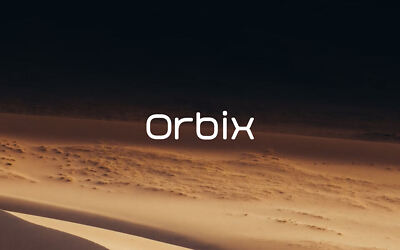
Neutral Sans Typeface
Neutral Sans is a modern, humanist-inspired sans-serif typeface, designed to provide clarity, versatility, elegance and a touch of warmth. Its clean and balanced proportions, with slightly rounded curves, make it suitable for a wide variety of applications, from branding to editorial design, posters, digital and more.
Neutral Sans offers excellent legibility at small sizes and creates a bold impact in large headings. The typeface supports a wide range of languages, including Latin-based alphabets, making it a great choice for global projects.
Neutral Sans now includes variable font support, covering weights from 400 to 900. With variable font capabilities, users can adjust font weight seamlessly without switching weights, bringing greater design flexibility. Variable fonts allow designers to fine-tune weight across various media, enabling subtle adjustments and precise hierarchy management with ease.
The expanded weight range in Neutral Sans allows for a more versatile approach across different design needs, providing both readability and strong visual impact in body text, headlines, and branding applications.